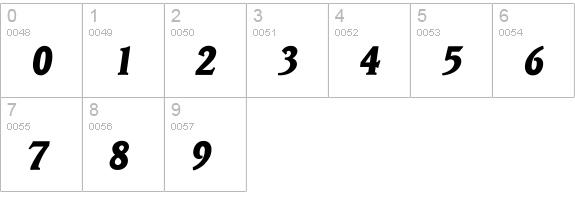
Iveracruz Bold is a strong, high-contrast variant in the Iveracruz typeface family \xE2\x80\x94 well suited to headlines, attention-grabbing titles, and strong calls-to-action.
Introducing Iveracruz Bold, a stunning and versatile typeface that commands attention with its bold and expressive nature. This striking font embodies a perfect balance between elegance and strength, making it an ideal choice for various design projects. Iveracruz Bold stands out with its clean lines, sharp edges, and distinct geometric shapes. Its bold weight adds a touch of power and confidence, ensuring that your message is delivered with impact. Whether you're designing a logo, creating eye-catching headlines, or crafting stylish invitations, this typeface will effortlessly elevate your work to new levels of sophistication. One of the best features of Iveracruz Bold is that it is freely available to download at FontsMarket.com. This means that you can easily access and utilize this exceptional font without any hassle or cost. Its accessibility allows designers, creatives, and enthusiasts alike to explore the endless possibilities and unleash their creativity without limitations. With its wide range of uppercase and lowercase characters, numerals, punctuation marks, and special symbols, Iveracruz Bold offers unparalleled versatility. Its timeless design ensures that it remains relevant in various design contexts, from modern and minimalist to classic and elegant. The legibility of Iveracruz Bold is exceptional, even at small sizes, making it an excellent choice for both print and digital projects. Its strong presence on the page or screen instantly captures attention and invites readers to engage with the content. So, whether you're designing a magazine layout, website, poster, or any other visual project, Iveracruz Bold is the perfect companion to bring your ideas to life. Download this remarkable font for free at FontsMarket.com and let its boldness and elegance elevate the impact of your designs.